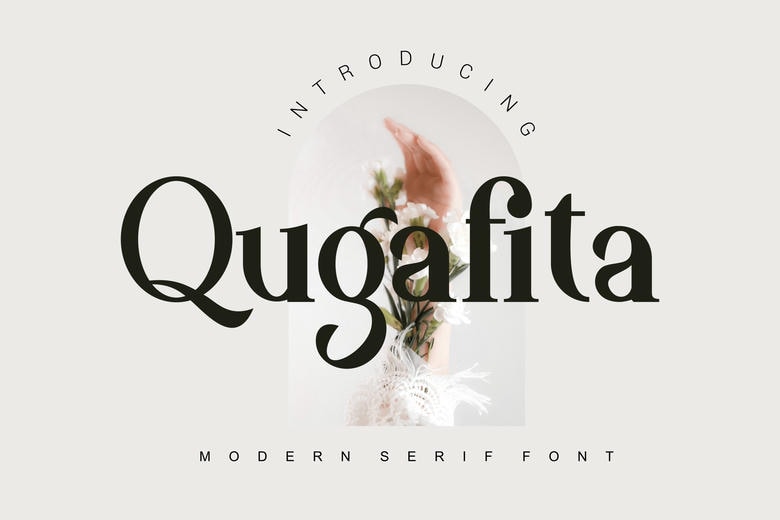
Qugafita Font
Qugafita is a bold and authentic serif font. The font is suitable for any branding project like logo, t-shirt printing, export, and many more. It will look outstanding in a wide range of contexts. This font is perfect for elegant logos, branding, travel promotions, layout magazines, beauty products, product packaging, quotes, or simply as a stylish text overlay onto any background image.
Qugafita Serif Font